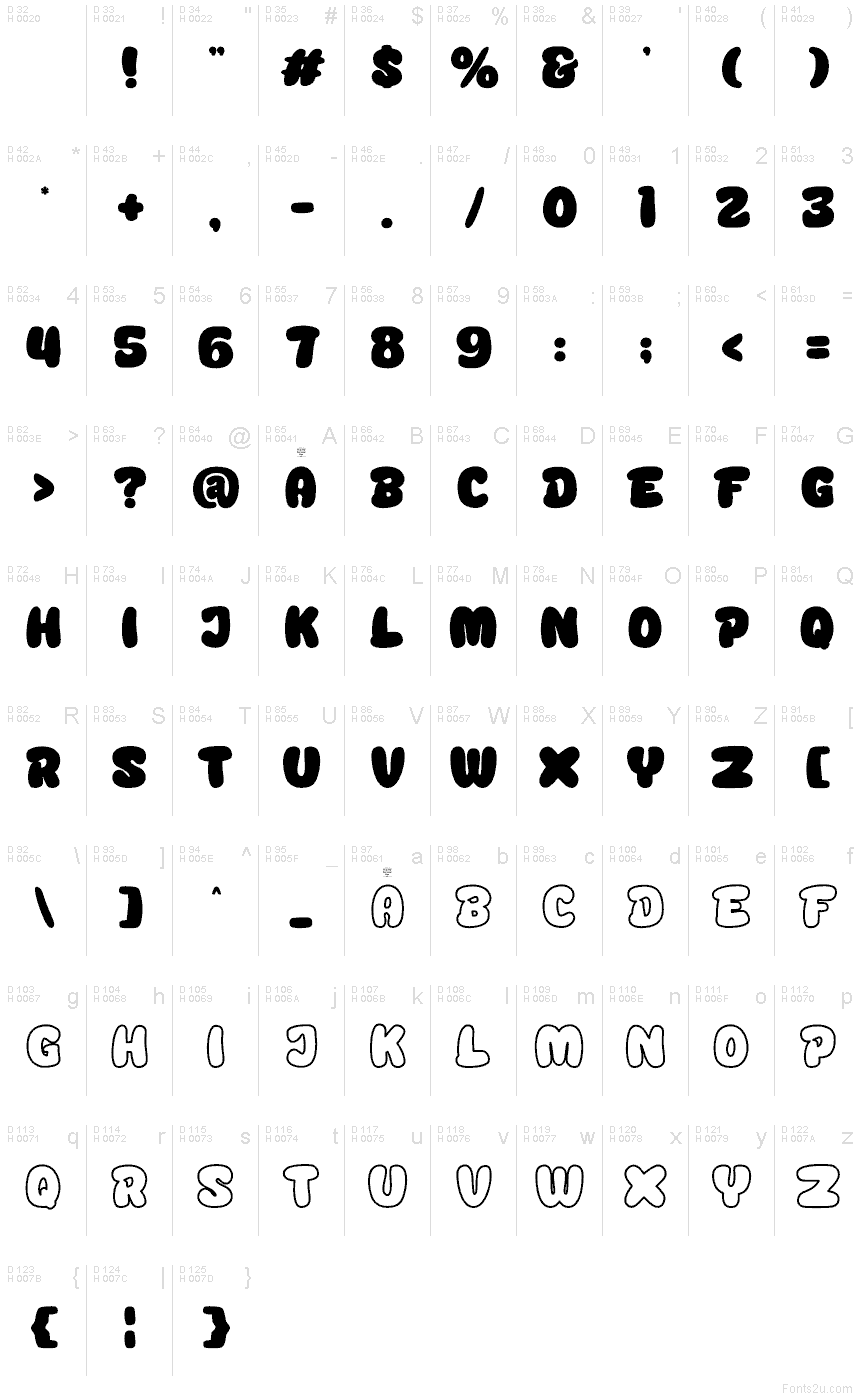
Renos Boxe
Renos Boxe font by Ermedia Studio is a free cartoon display font with a squishy, inflatable bounce. Each letter looks air-filled and slightly wobbly, with chunky curves and playful negative spaces that feel like doodles come to life. It brings instant friendliness without getting messy, so headlines pop while remaining legible at a glance.
Using Renos Boxe, you can lift kids’ logos, snack packaging, birthday invites, YouTube thumbnails, toy branding, classroom posters, and sticker sets. This free font shines when you set it big and let the puffy rhythm breathe. Pair it with a simple rounded sans for captions to keep the fun on top and the details crisp below.